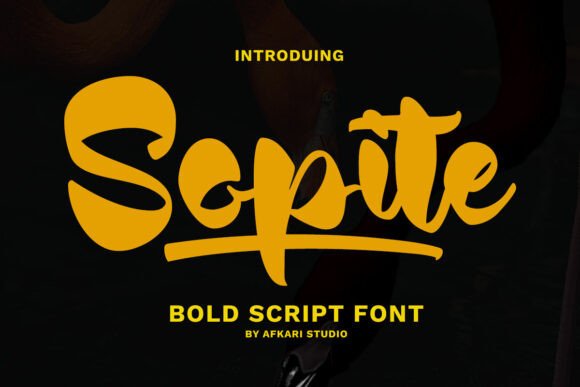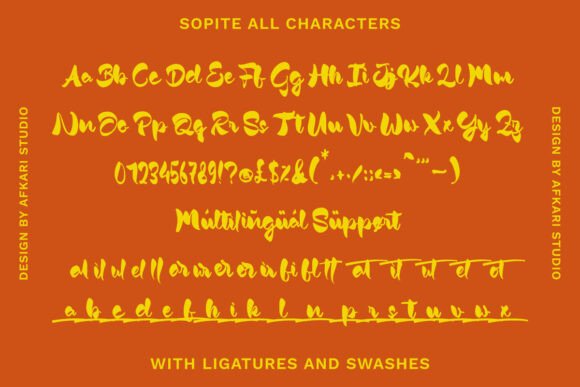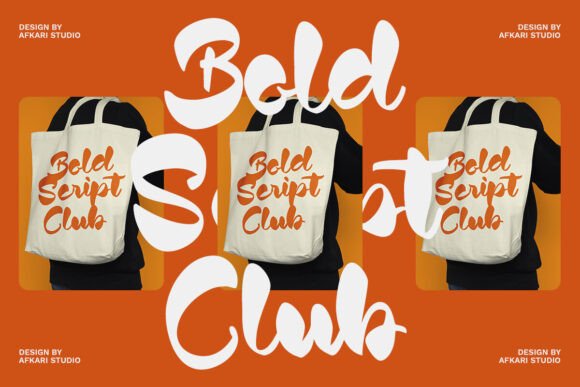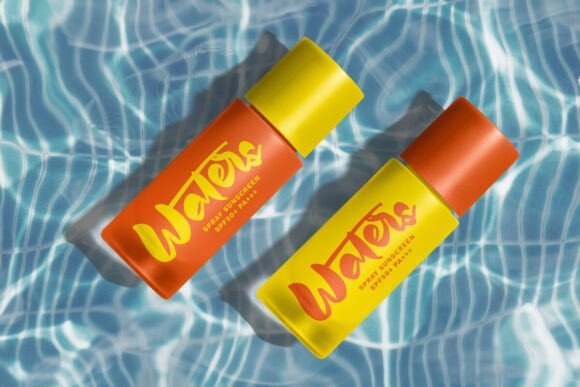
Sopite Font
About the Sopite Font
Elevate your designs with Sopite Font, a font that combines sophistication with readability. Sopite is all about making a statement with style. It has that bold, confident energy of a handwritten note—like something scribbled quickly but with purpose. The strokes are strong, the curves are smooth, and the whole vibe feels personal yet powerful.
Whether you’re working on a logo, a product label, or just want your message to stand out on social media, Sopite brings that handmade charm with a punch of boldness. It’s expressive without being messy, and stylish without trying too hard.